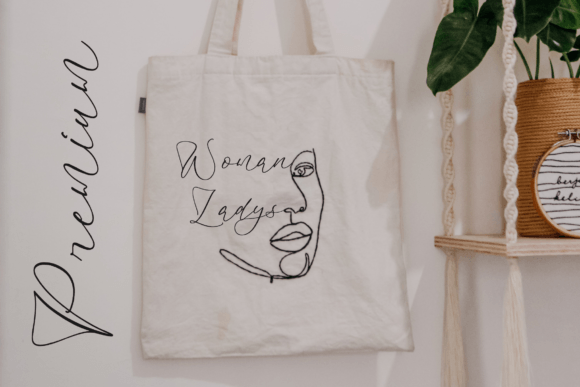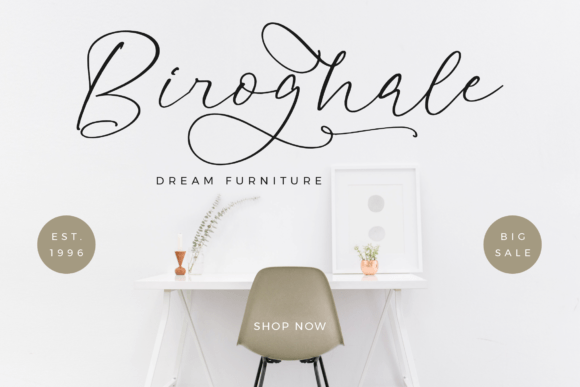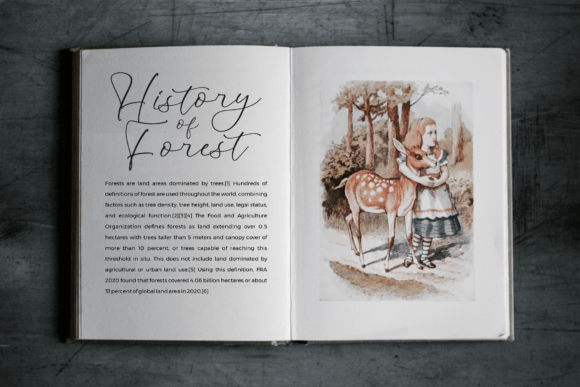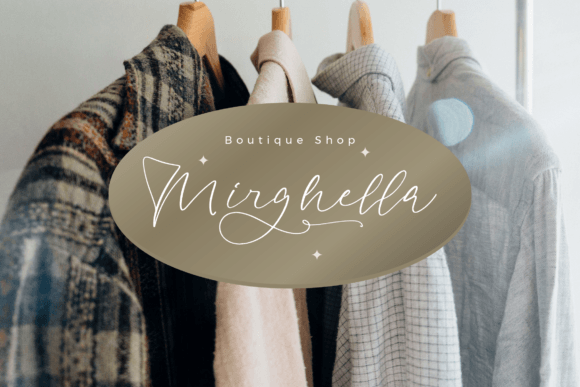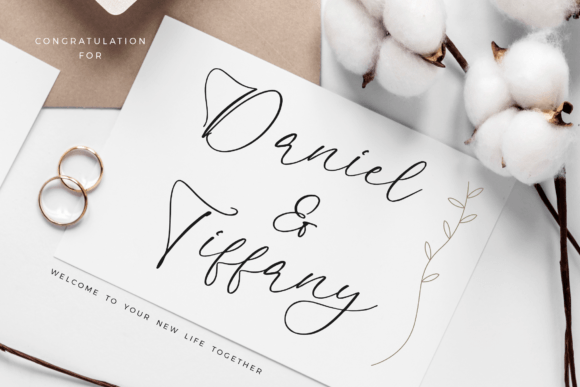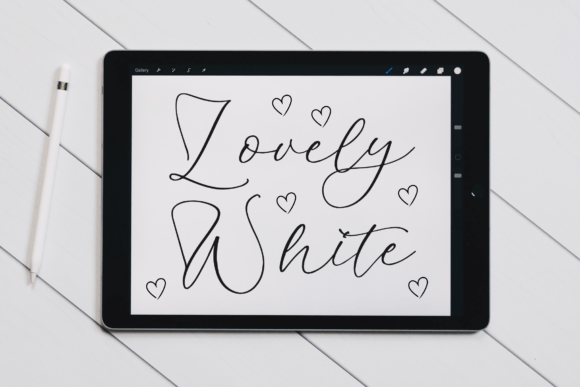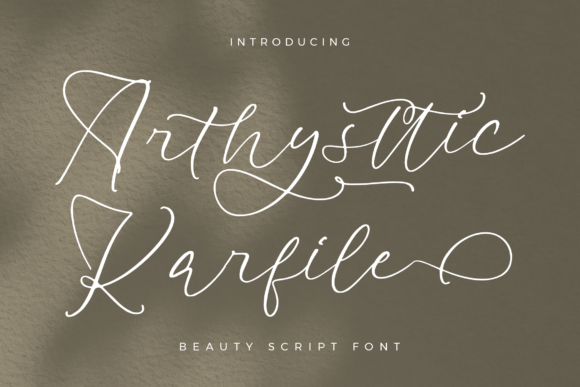
Introducing Arthysttic Karfile Font: The Ultimate Romantic Calligraphy Typeface
Are you a designer or crafter looking for a font that can add a touch of luxury and romance to your design projects? Look no further than Arthysttic Karfile Font! This stunning calligraphy typeface is designed to make your designs stand out with its unique and elegant style.
What Makes Arthysttic Karfile Font So Special?
Arthysttic Karfile Font is a romantic and sweet calligraphy typeface that features characters that dance along the baseline, creating a beautiful and fluid motion. This font is perfect for designers and crafters who want to add a touch of elegance and sophistication to their designs. Whether you’re working on a wedding invitation, a branding project, or a packaging design, Arthysttic Karfile Font is sure to impress.
Key Features of Arthysttic Karfile Font
- Romantic and Sweet Style: Arthysttic Karfile Font features a romantic and sweet calligraphy style that is perfect for designs that require a touch of elegance and sophistication.
- Dancing Characters: The characters in Arthysttic Karfile Font dance along the baseline, creating a beautiful and fluid motion that adds visual interest to your designs.
- Luxury Spark: This font is designed to add a luxury spark to any design project, making it perfect for high-end branding, wedding invitations, and packaging designs.
Benefits of Using Arthysttic Karfile Font
Using Arthysttic Karfile Font in your design projects can have numerous benefits. Here are just a few:
- Stand Out Designs: Arthysttic Karfile Font is designed to make your designs stand out from the crowd. Its unique and elegant style is sure to grab attention and leave a lasting impression.
- Versatility: Arthysttic Karfile Font can be used in a variety of design projects, from wedding invitations to branding and packaging designs.
- Time-Saving: With Arthysttic Karfile Font, you can save time and effort in creating beautiful and elegant designs that would otherwise take hours to create.
Who Can Benefit from Arthysttic Karfile Font?
Arthysttic Karfile Font is perfect for designers and crafters who work on a variety of design projects, including:
- Wedding Designers: Wedding designers can use Arthysttic Karfile Font to create beautiful and elegant wedding invitations, stationery, and other wedding-related designs.
- Branding Experts: Branding experts can use this font to create high-end branding designs that exude luxury and sophistication.
- Packaging Designers: Packaging designers can use Arthysttic Karfile Font to create beautiful and eye-catching packaging designs that stand out on store shelves.
- Crafters: Crafters can use this font to create beautiful and unique craft projects, such as handmade cards, gift tags, and other paper crafts.
In conclusion, Arthysttic Karfile Font is a stunning calligraphy typeface that can add a touch of luxury and romance to any design project. With its unique and elegant style, PUA encoding, and ease of use, this font is perfect for designers and crafters who want to create beautiful and eye-catching designs. Whether you’re working on a wedding invitation, a branding project, or a packaging design, Arthysttic Karfile Font is sure to impress.